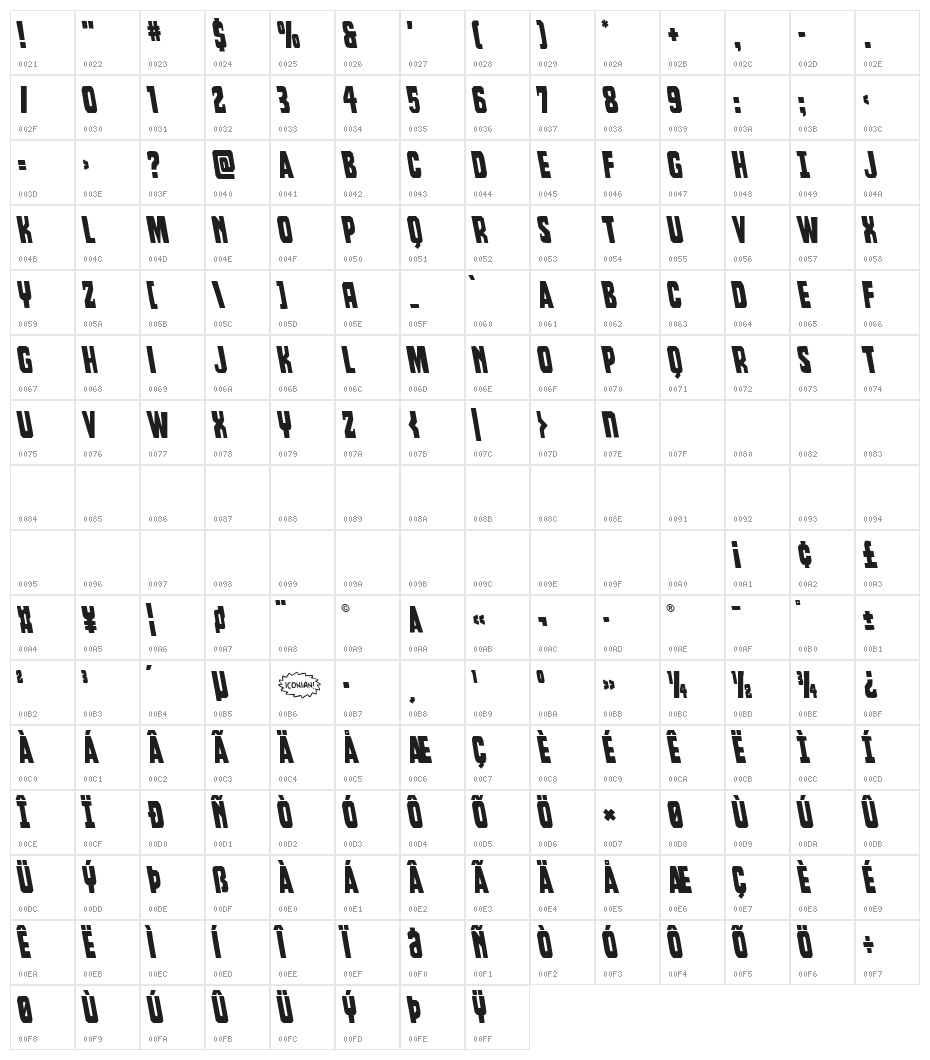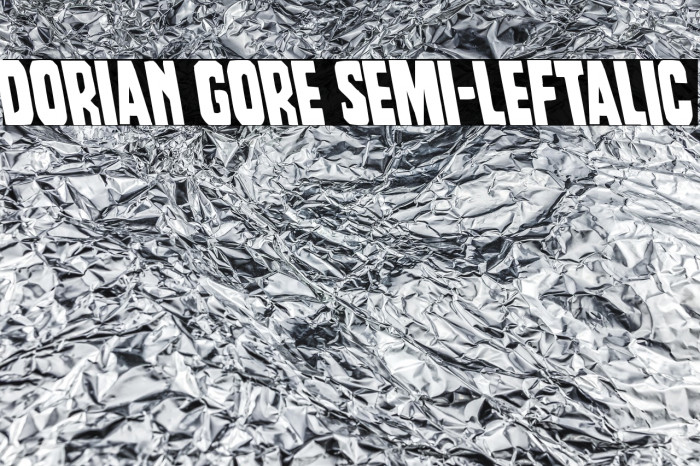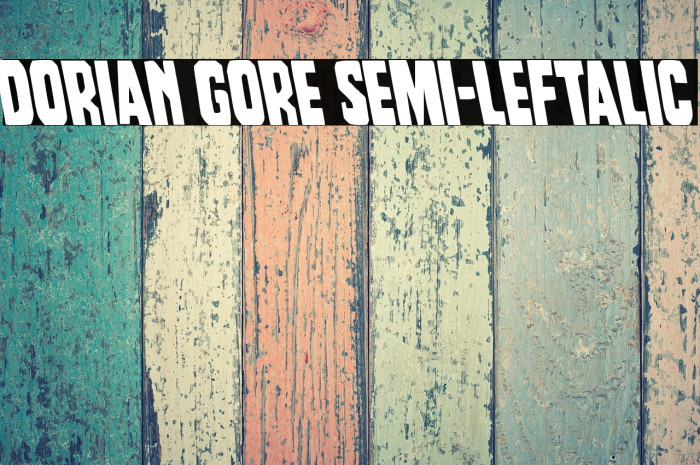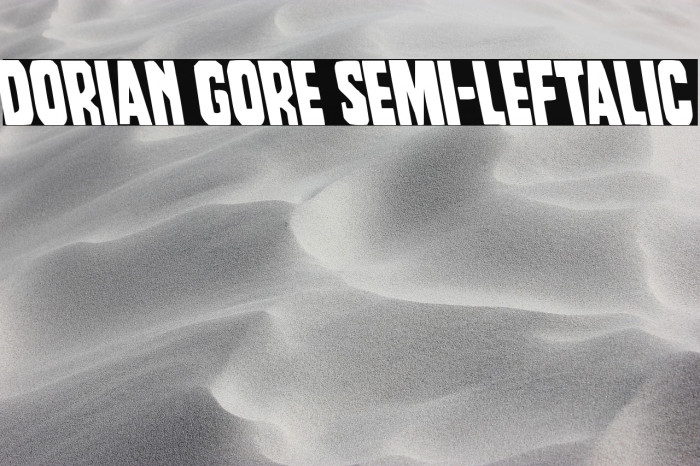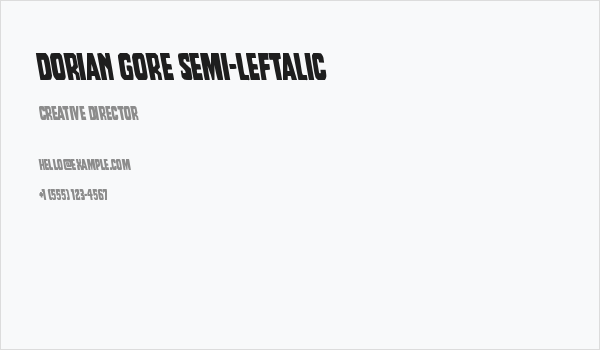
Dorian Gore Semi-Leftalic Font
Dorian Gore Semi-Leftalic Description
This bold and striking font features a unique left-leaning italic style, giving it a dynamic and energetic appearance. The characters are robust and heavily weighted, with a strong presence that commands attention. The angular design and sharp edges contribute to its modern and edgy feel, making it suitable for impactful headlines and attention-grabbing designs. The font maintains a consistent thickness throughout, ensuring readability while adding a touch of flair with its distinctive slant. Its boldness and unique style make it ideal for projects that require a strong visual impact.
| Proposed Projects | Ideal for posters, headlines, branding, and any design needing a bold statement. |